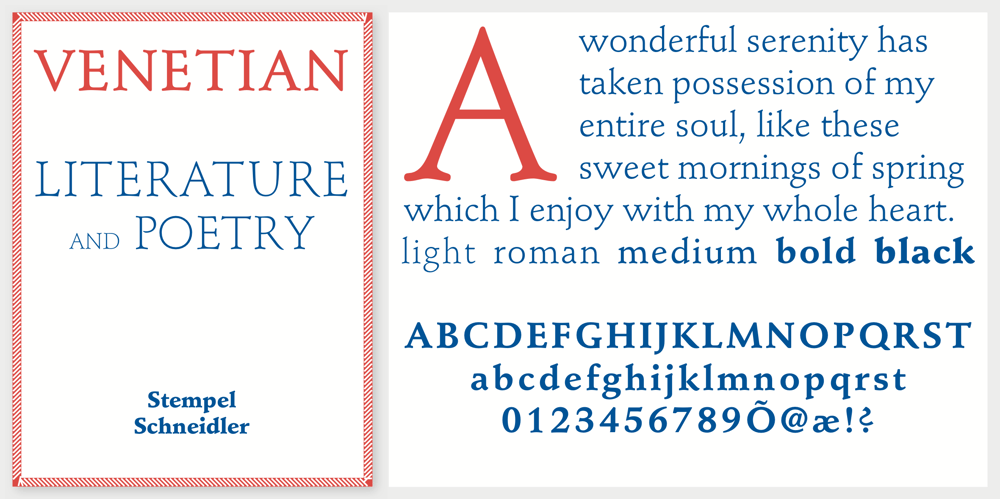
Stempel Schneidler LT Font Family was designed by F. H. Ernst Schneidler, Linotype Design Studio and published by Linotype. Stempel Schneidler LT contains 10 styles and family package options. F .H. Ernst Schneidler, type designer and teacher, originally designed Schneidler Old Style in 1936 for the Bauer foundry. Stempel Schneidler is based on the typefaces of Venetian printers from the Renaissance period and possesses their grace, beauty, and classical proportions. The Stempel Schneidler, a completely reworked and tuned font family made by D. Stempel AG in Frankfurt, is a fine, legible text font that also works well in display. One of Schneidler’s more unique features is its question marks.